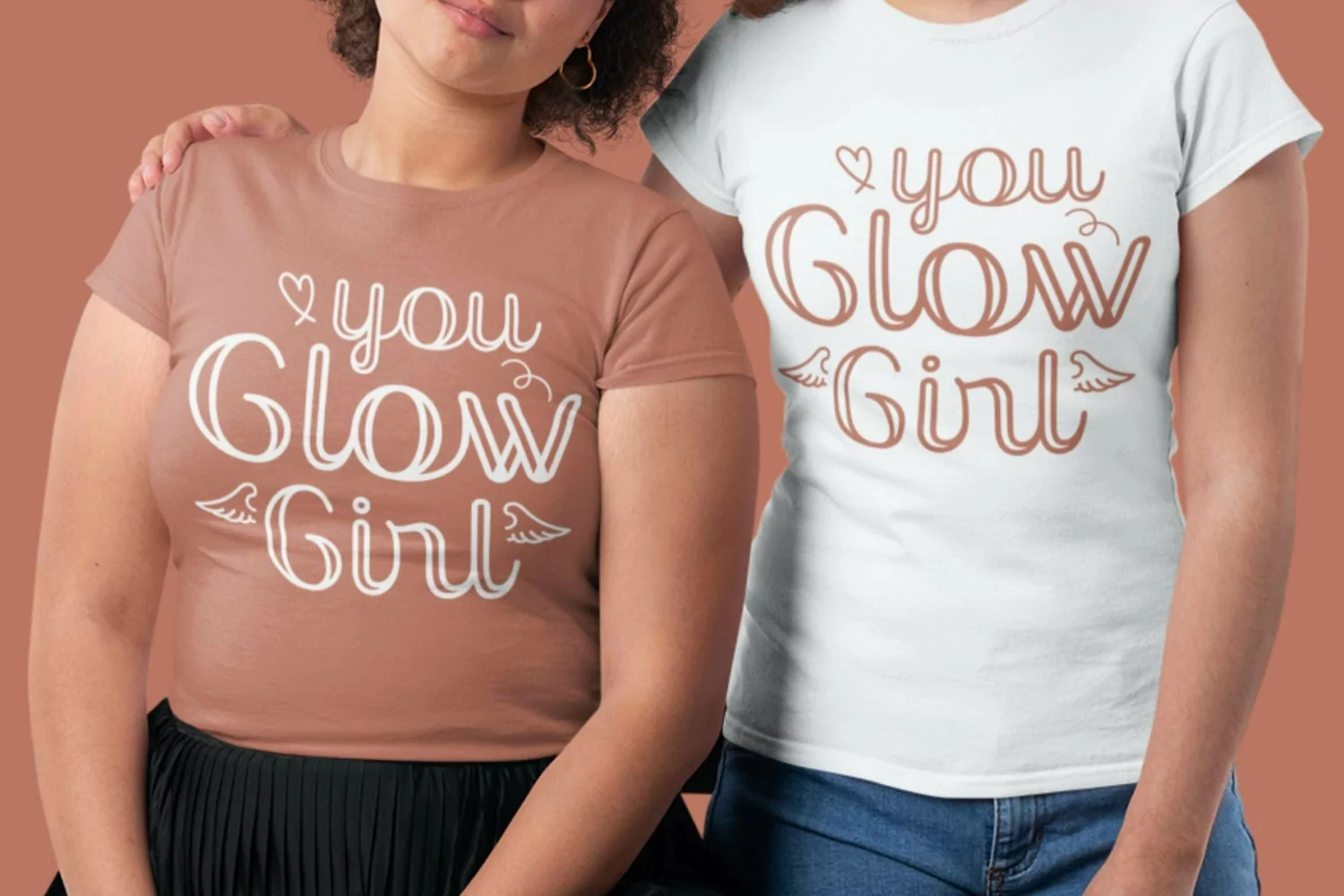
Miss Lorrie suitable for some designs such as the logotype, brand, packaging, quotes, music poster, t-shirt, cover book and more custom design. The features uppercase, lowercase, numeral, punctuation & symbol, multilingual support.